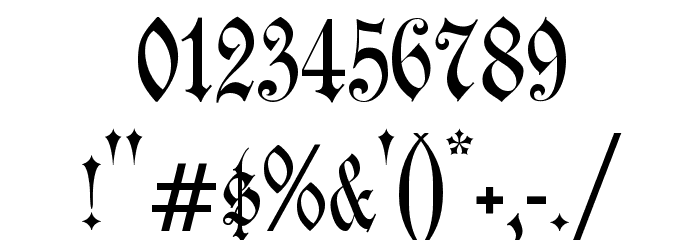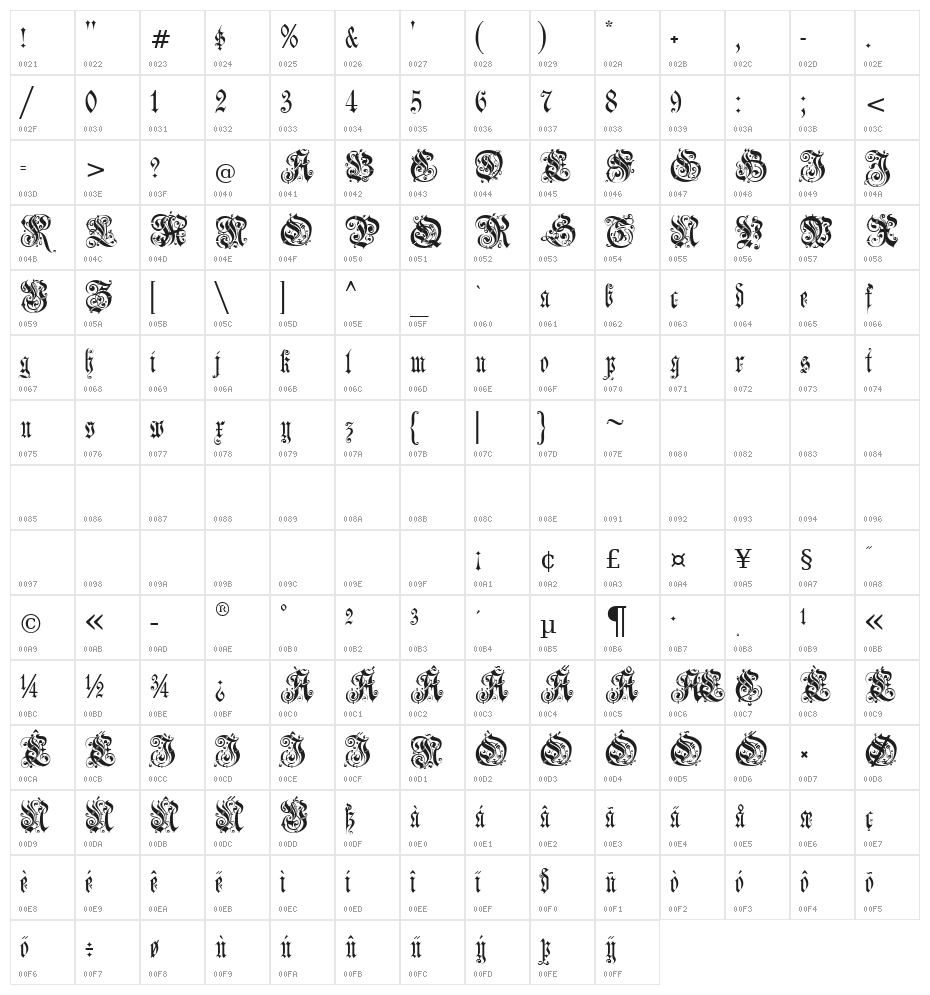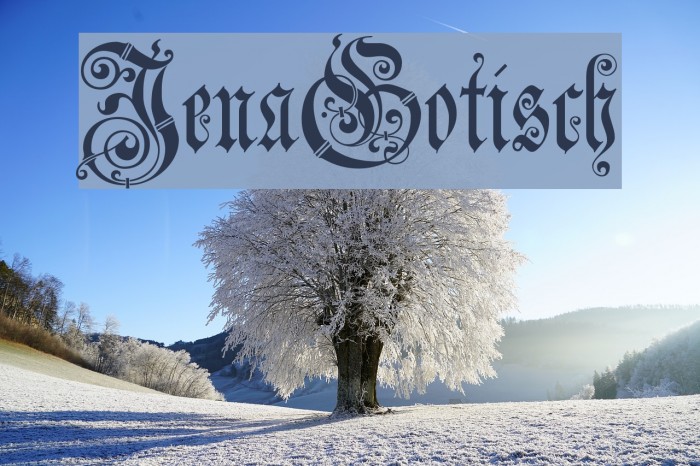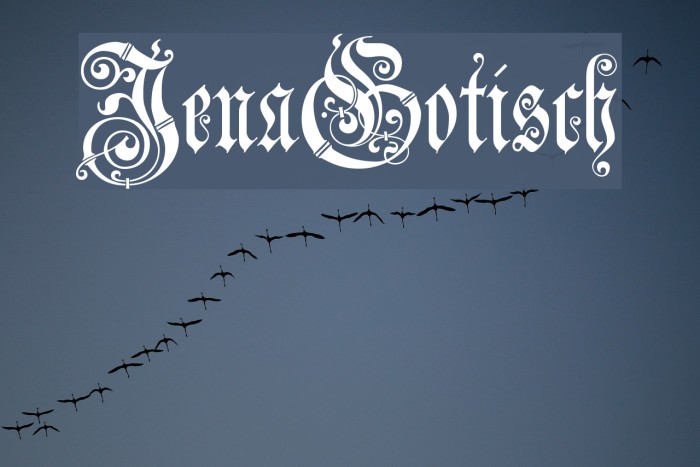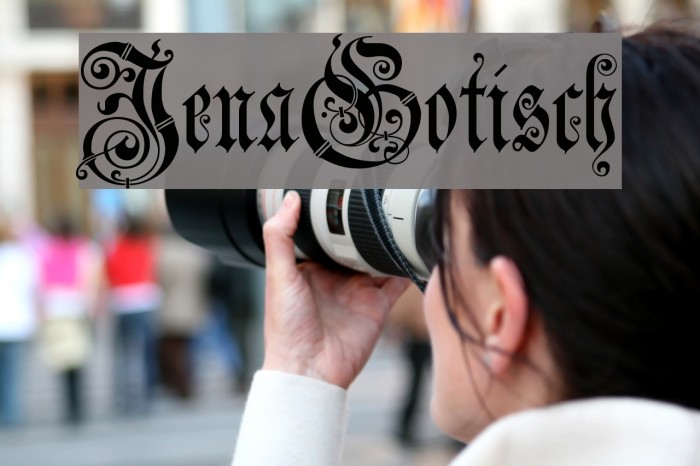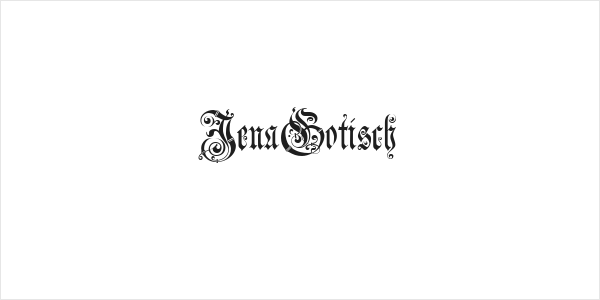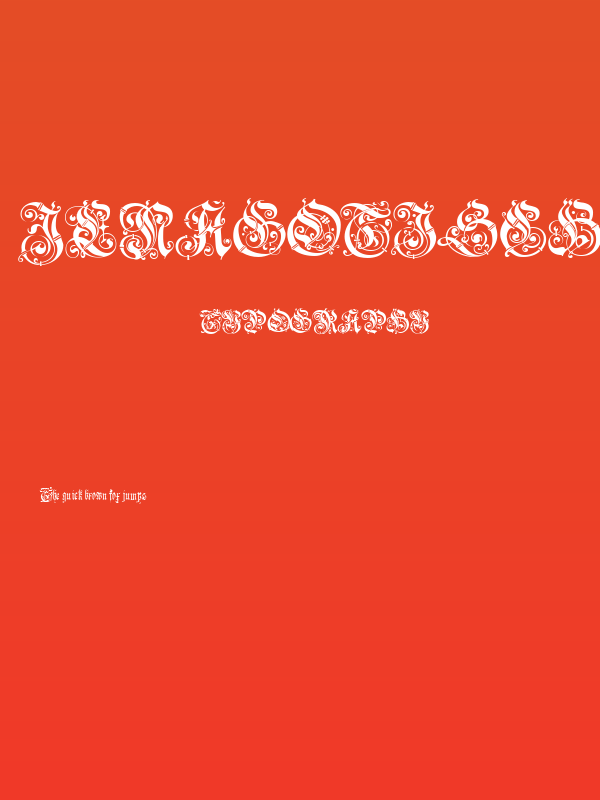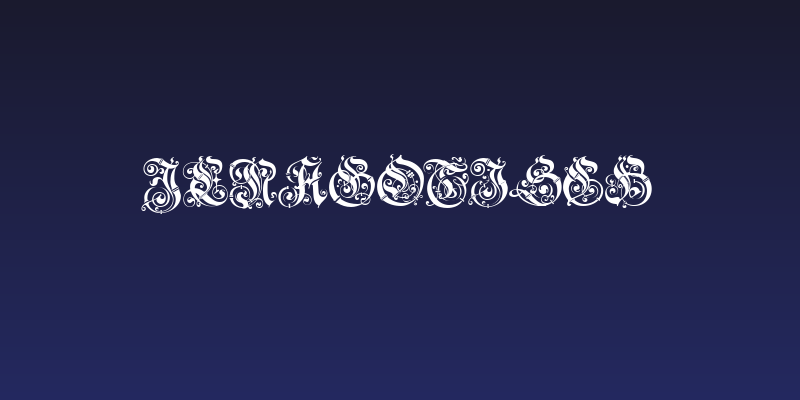
JenaGotisch Font
JenaGotisch Description
This font exudes an intricate and ornate style, reminiscent of traditional Blackletter typefaces. The uppercase letters are highly decorative, featuring elaborate swirls and embellishments that give them a regal and historical appearance. The lowercase letters maintain a more straightforward Blackletter style, with sharp angles and pointed edges, yet they still carry a touch of elegance. The numerals are bold and consistent with the overall theme, ensuring readability while maintaining the decorative essence. Special characters are equally ornate, fitting seamlessly into the font's aesthetic. This font is ideal for projects that require a touch of medieval or gothic flair.
| Use Case | Logos, Headlines, Decorative purposes |
| Proposed Projects | Suitable for historical documents, wedding invitations, gothic-themed designs, and branding that requires a classic and ornate touch. |